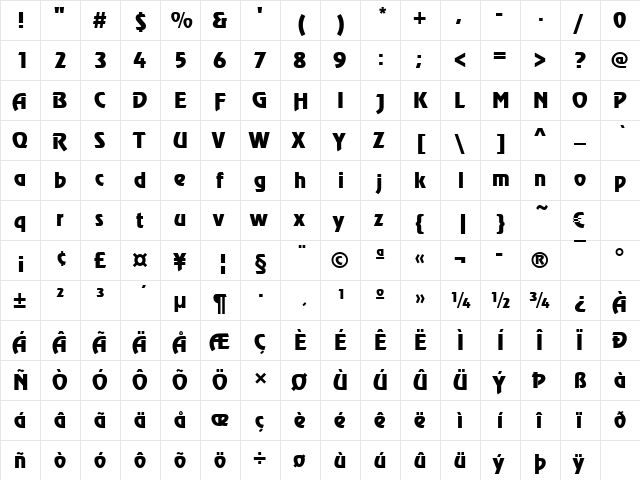
Ravel Regular
Design Context for Ravel Typeface
Ravel offers clean, dependable letterforms without strong stylistic allegiance, making it a practical choice for designers who need flexibility.
Pro Tip: Pair Ravel with a font of contrasting weight or personality to build a more expressive typographic hierarchy.